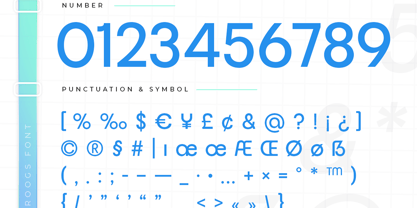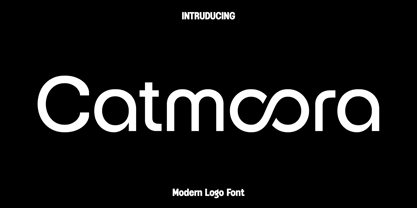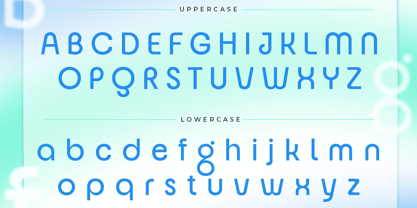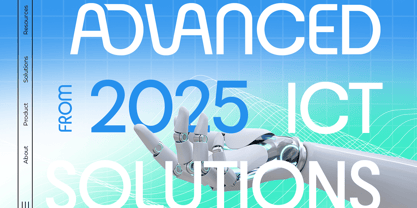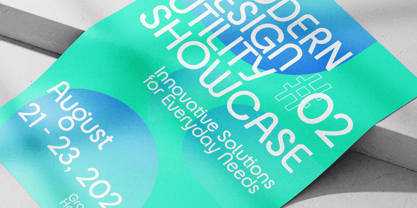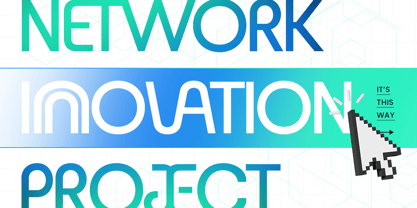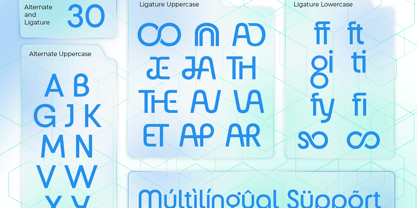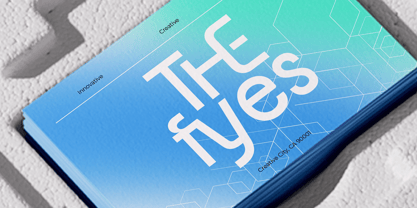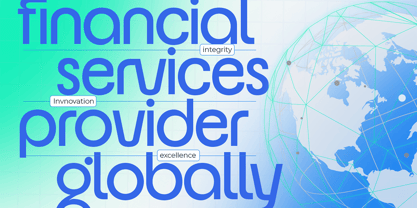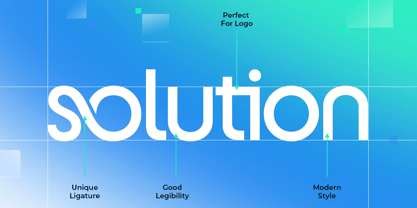
Catmoora
Die Schriftfamilie Catmoora wurde von Olivia Love entworfen und von Only Fonts veröffentlicht. Catmoora enthält 1 Stile. Mehr über diese Familie
Catmoora – Modern Corporate Logo Font Catmoora is a modern corporate logo font designed to convey professionalism, clarity, and contemporary style for today's brands. Drawing inspiration from clean geometric typography and minimalist design principles, Catmoora showcases balanced letterforms, refined proportions, and a confident visual presence that enables businesses to communicate trust, innovation, and sophistication. Its sleek construction makes it an excellent choice for creating strong and memorable brand identities. Versatile in nature, Catmoora is ideal for corporate logos, business branding, technology companies, startups, financial services, consulting firms, presentations, websites, packaging, editorial layouts, and marketing materials. Its clean and modern appearance ensures outstanding readability while maintaining a premium aesthetic across both print and digital applications. Created for designers seeking typography that is both functional and visually distinctive, Catmoora features carefully crafted characters that provide a polished and professional look, making it suitable for industries ranging from technology and architecture to fashion and creative agencies. Whether developing a complete brand identity or designing a simple corporate logo, Catmoora delivers a timeless and versatile solution. With its modern character and refined style, Catmoora transforms ordinary typography into a confident visual statement. It is the perfect font for businesses and designers who value elegance, consistency, and long-lasting design quality. Catmoora Font Features: • Modern corporate logo style • Unique character design • Uppercase and lowercase letters • Numerals, punctuation, and symbols • OpenType features • Multilingual support • Perfect for logos, branding, presentations, websites, and packaging • Suitable for both print and digital projects